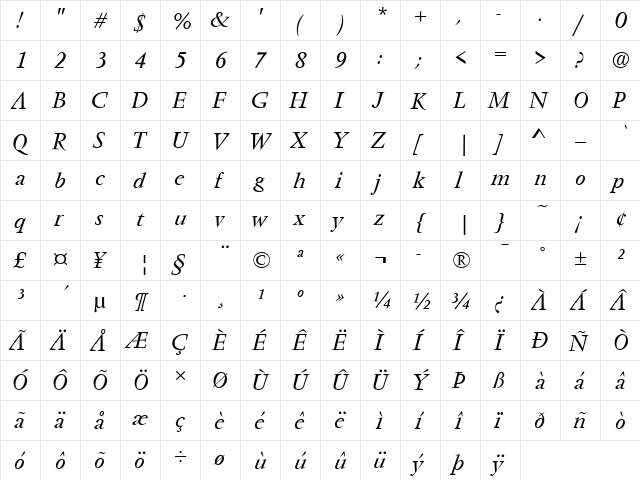
Vendome T Regular
Design Context for Vendome T Typeface
Vendome T takes a measured approach to typography — its balanced proportions and neutral character make it a reliable workhorse for both digital and print work.